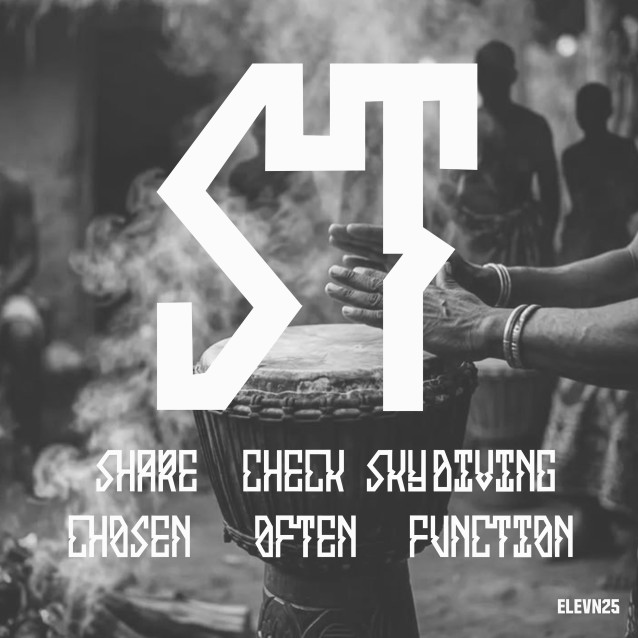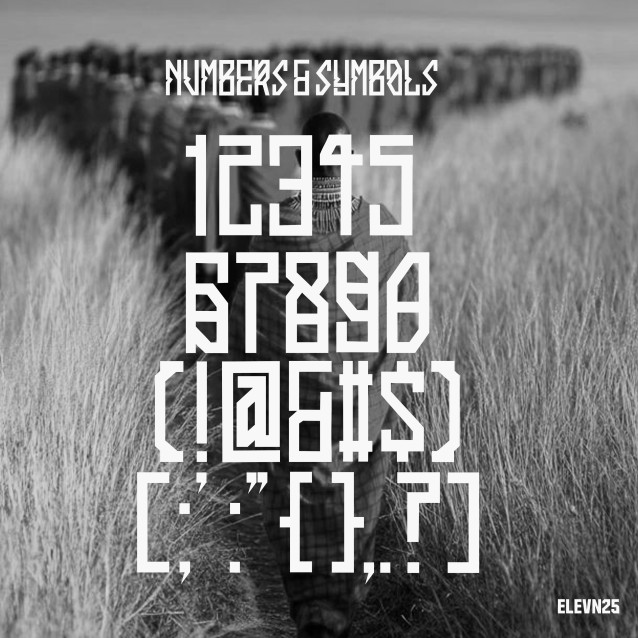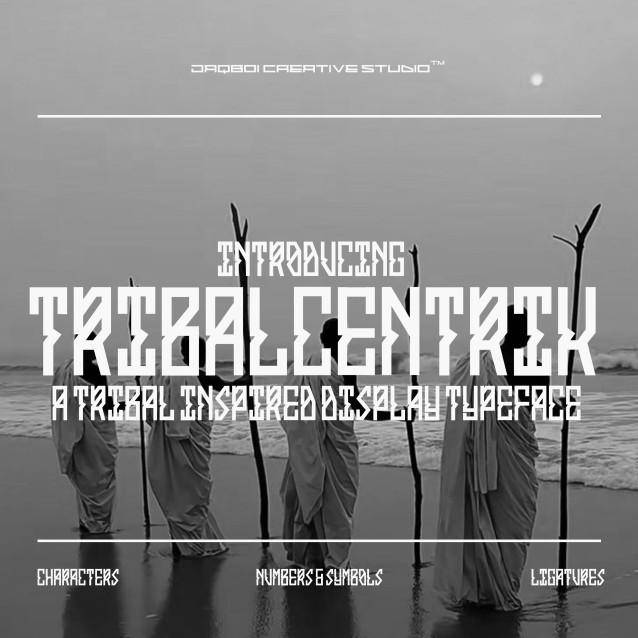
Introducing Tribalcentrik , borrowed from the term “Afrocentric” , it is a display typeface developed for your afrocentric aesthetics & built for cultural and tribal personality that is inspired by ancient african inscriptions.
TRIBALCENTRIK Font